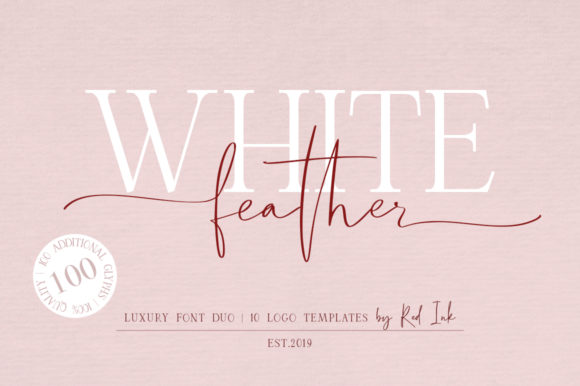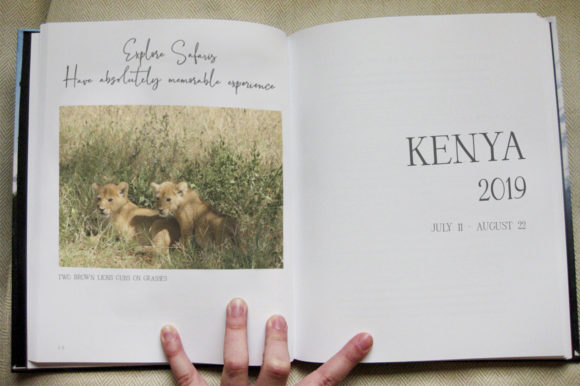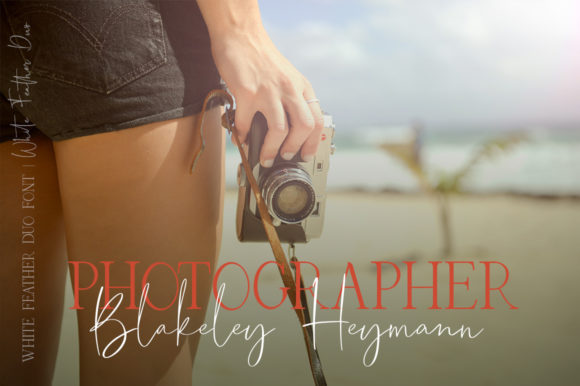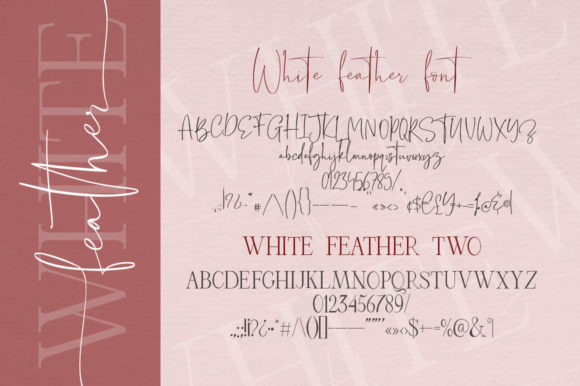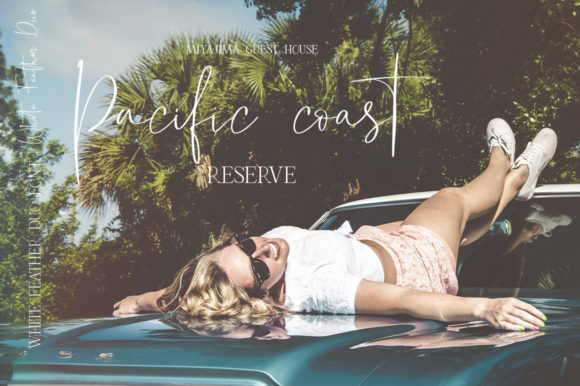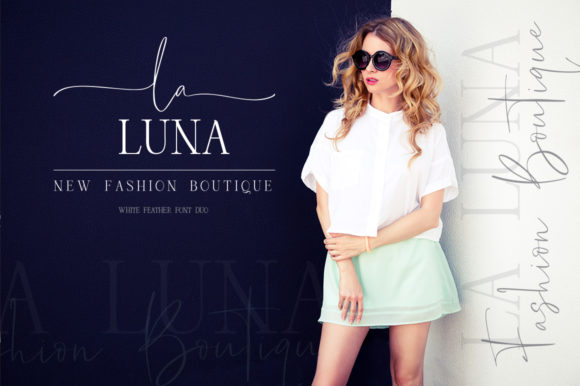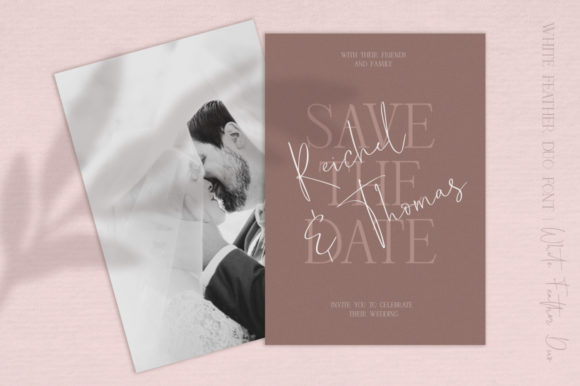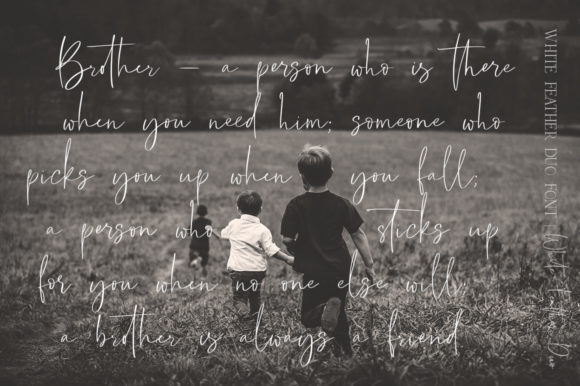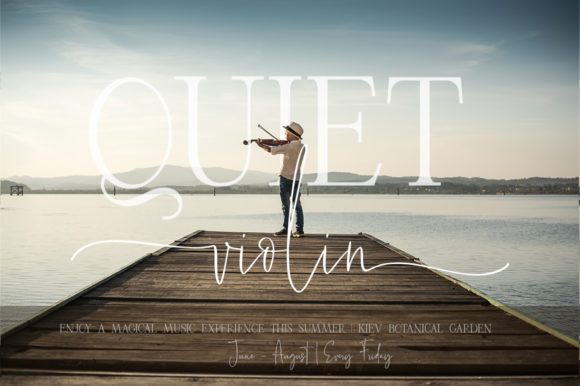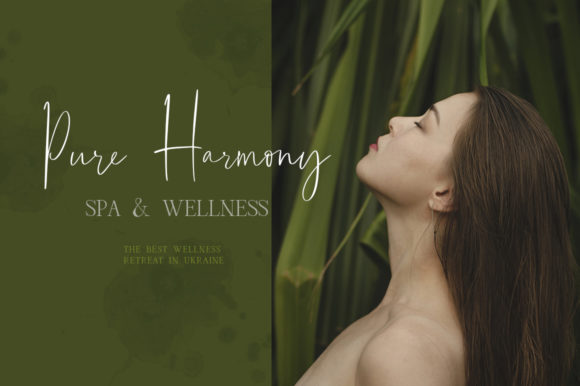
White Feather Duo Font
White Feather Duo is a beautiful and stunning font duo, featuring a stunning serif and a cute script font. Together, these two fonts will turn any design project into a standout!